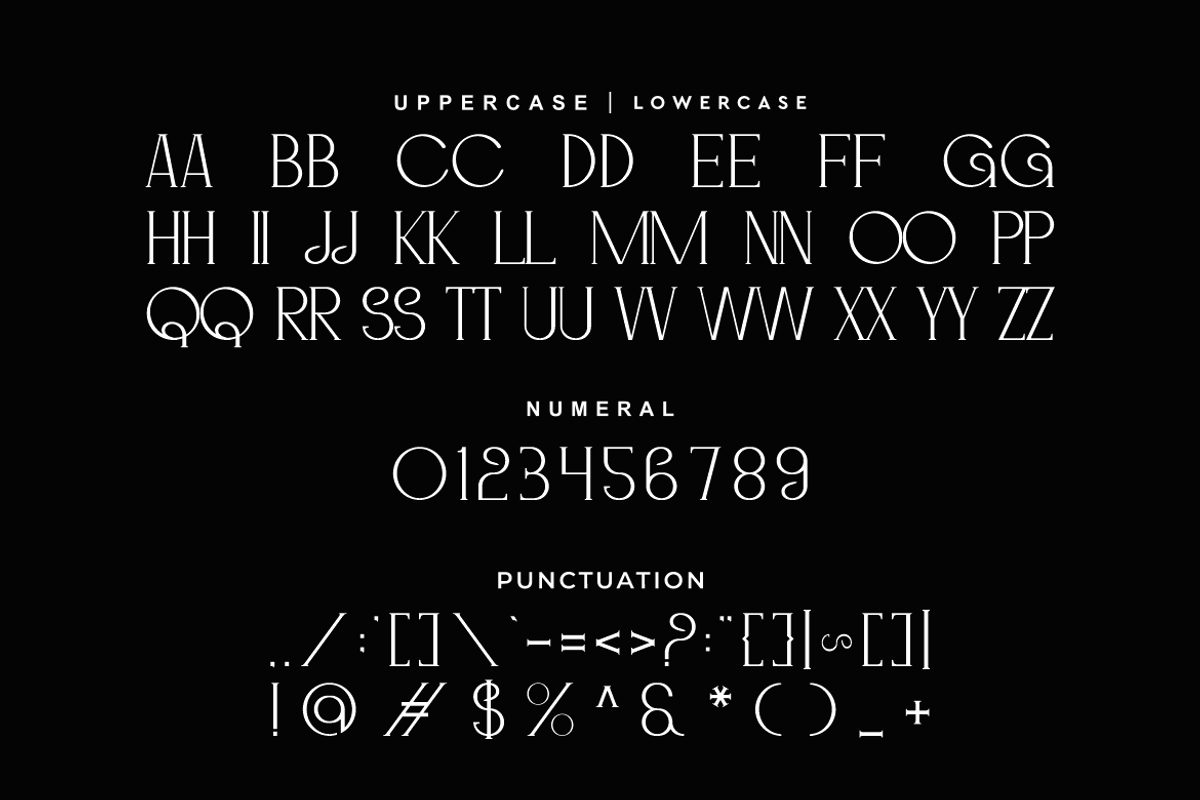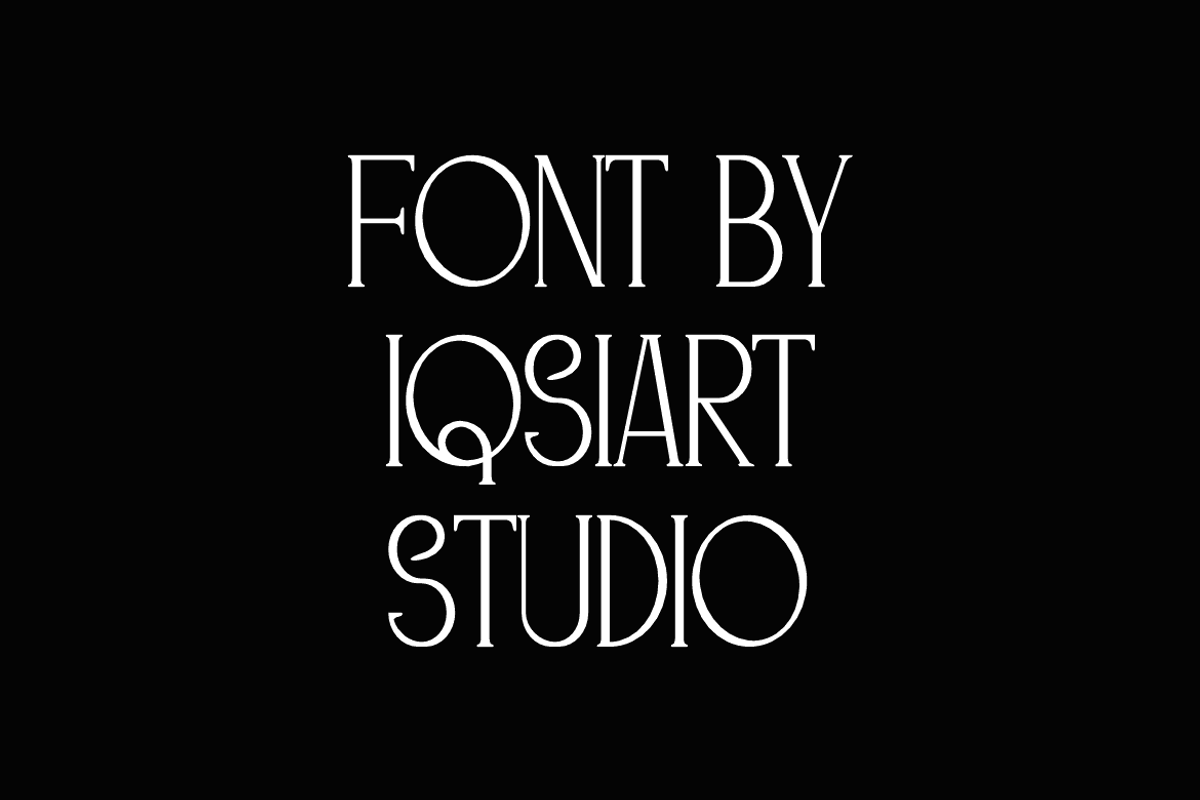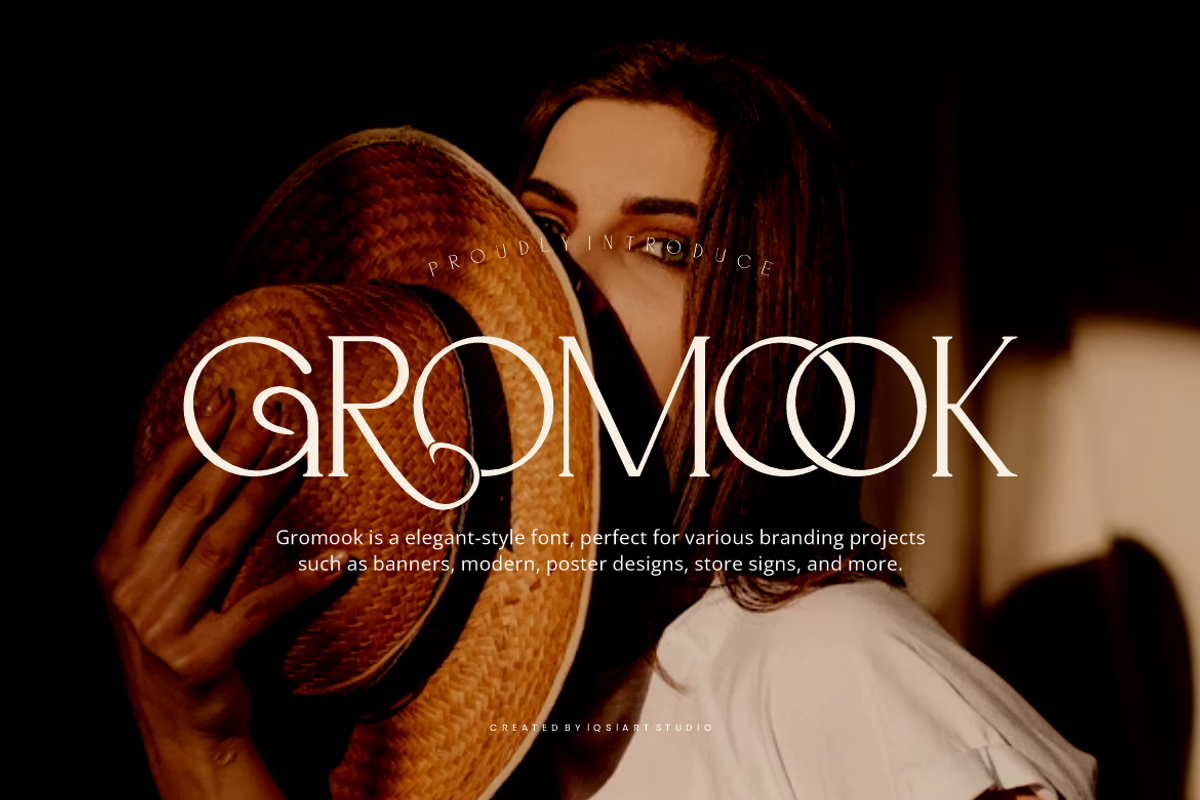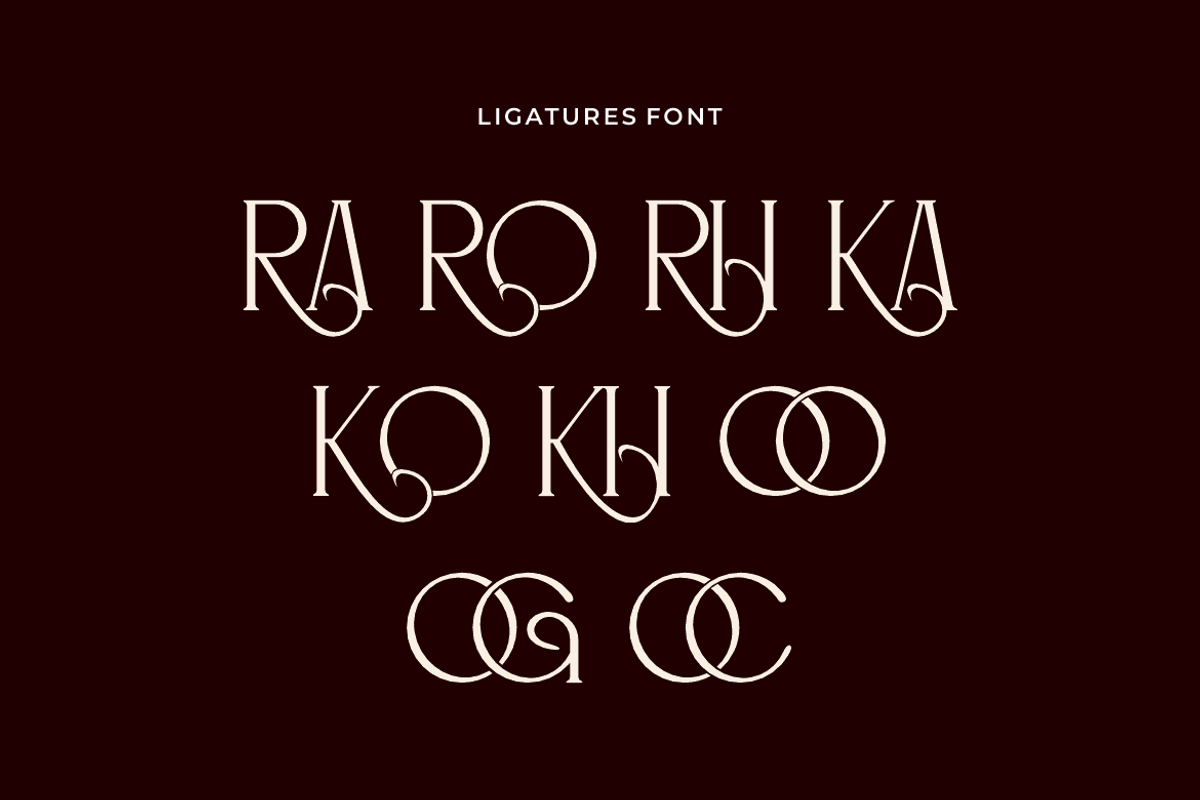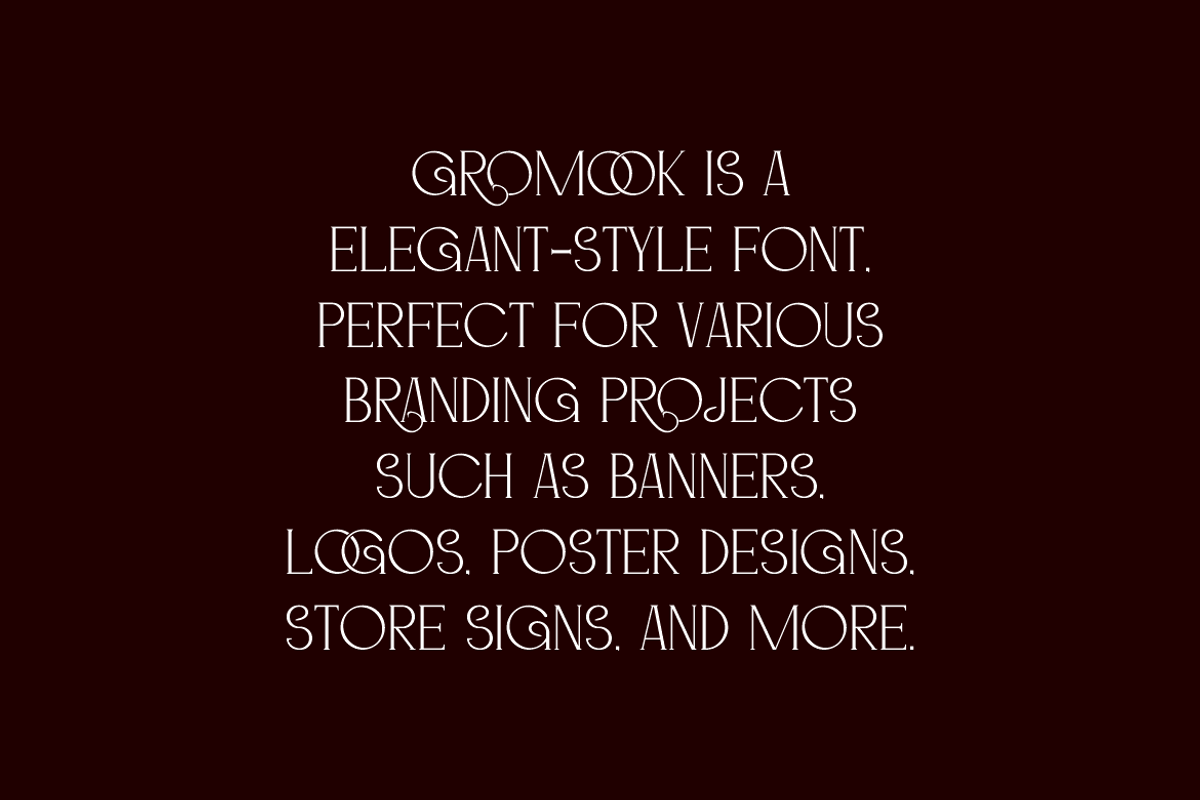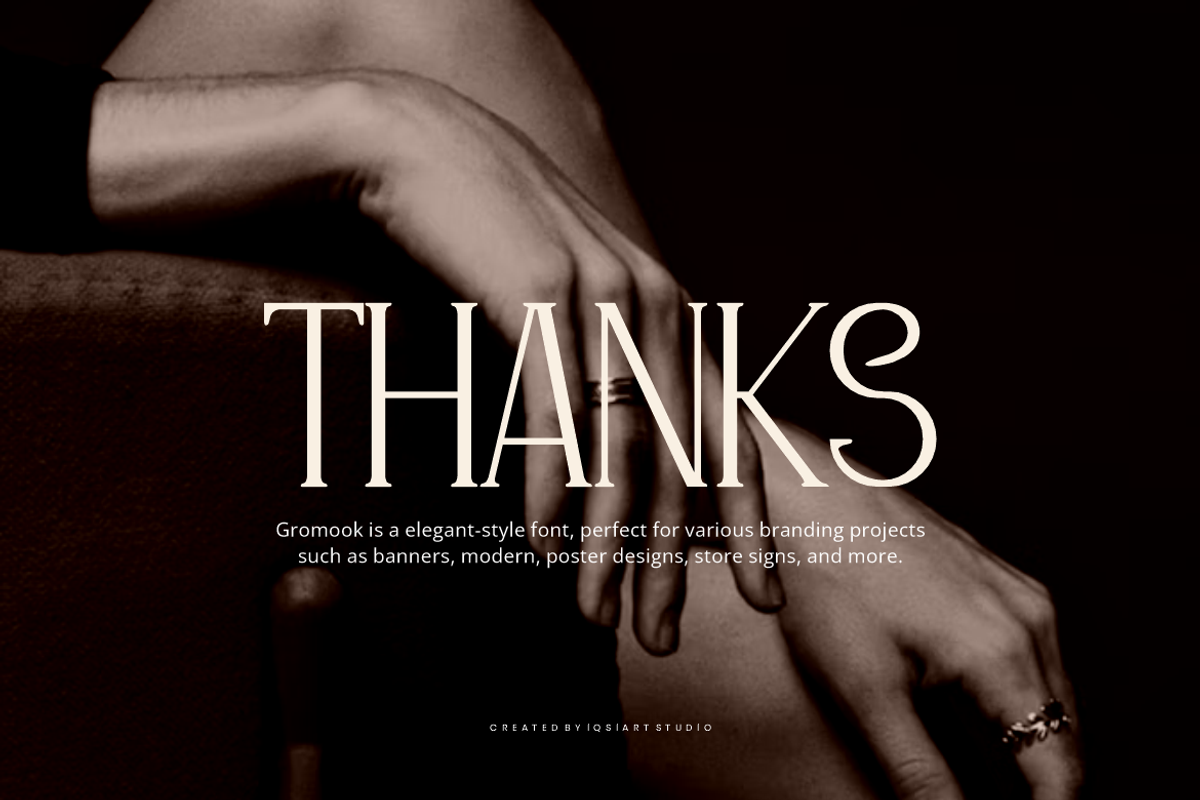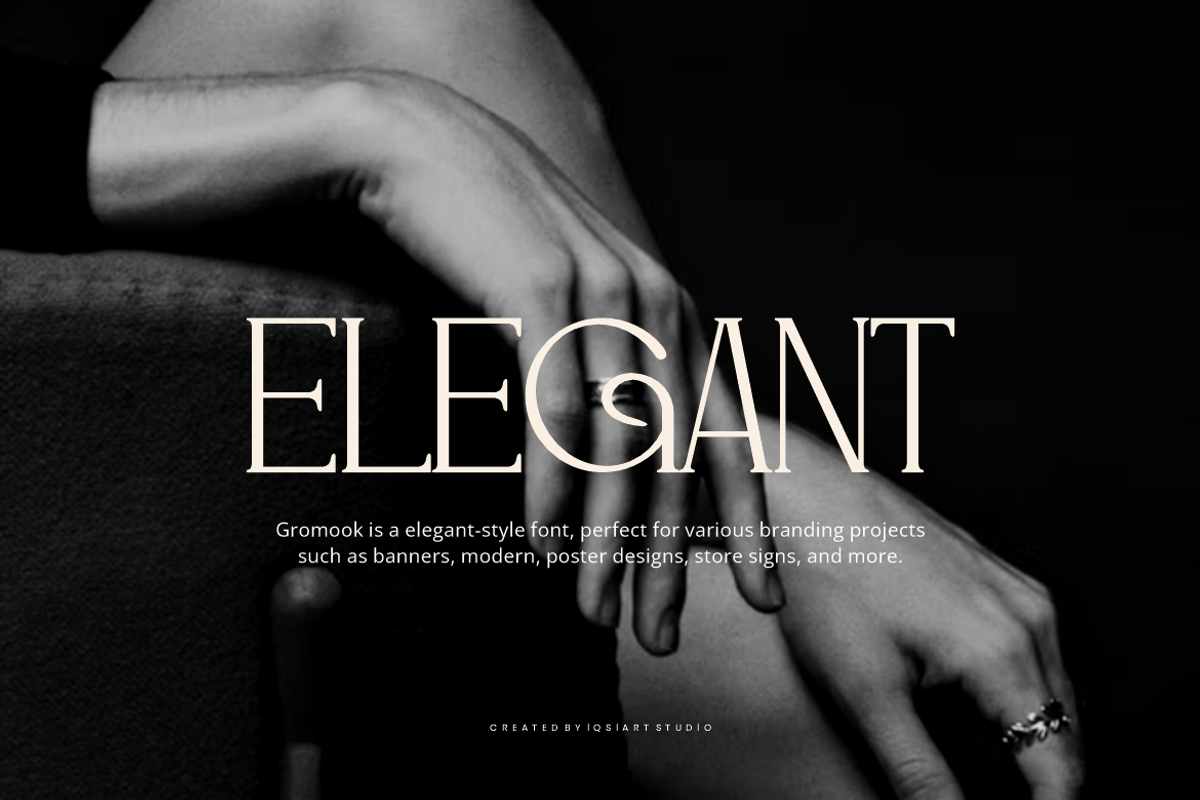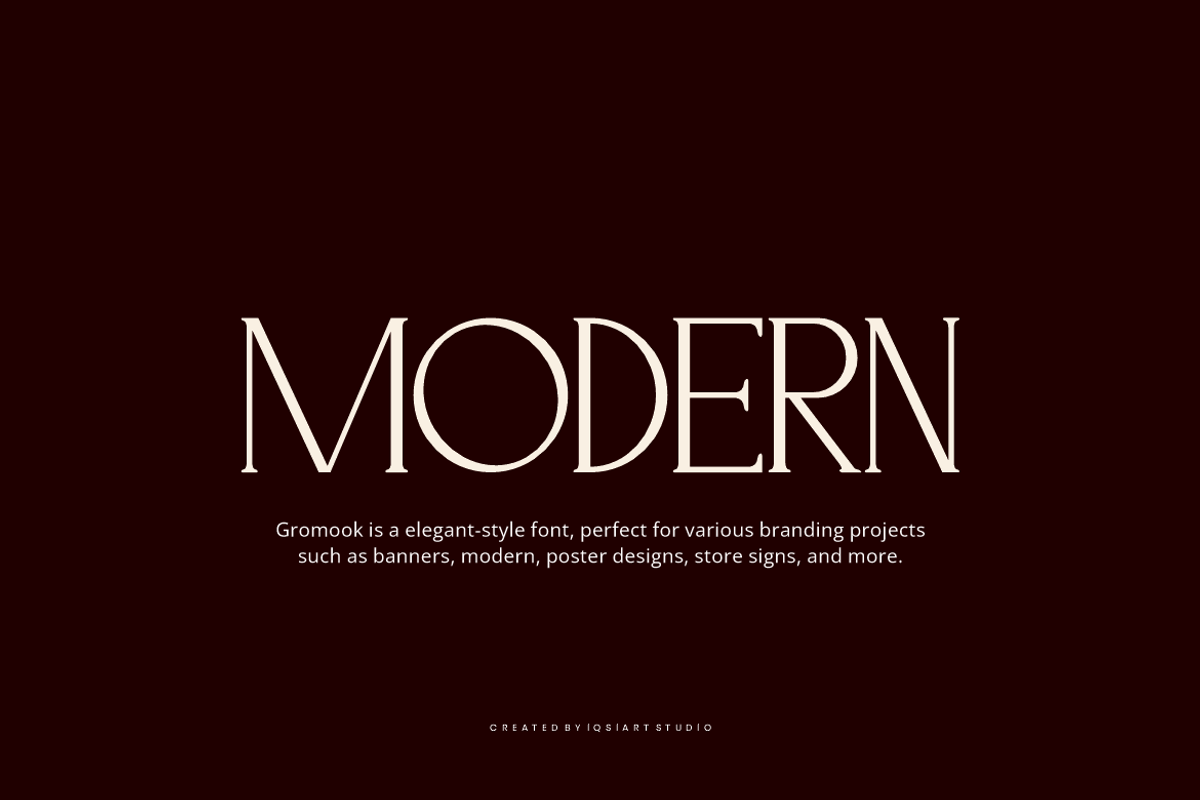
Gromook - Elegant Modern Font
Gromook Font is a modern and authentic display typeface that suits a variety of design needs. We offer a wide range of themes and font styles — visit our profile to explore more and find the perfect style for your project.